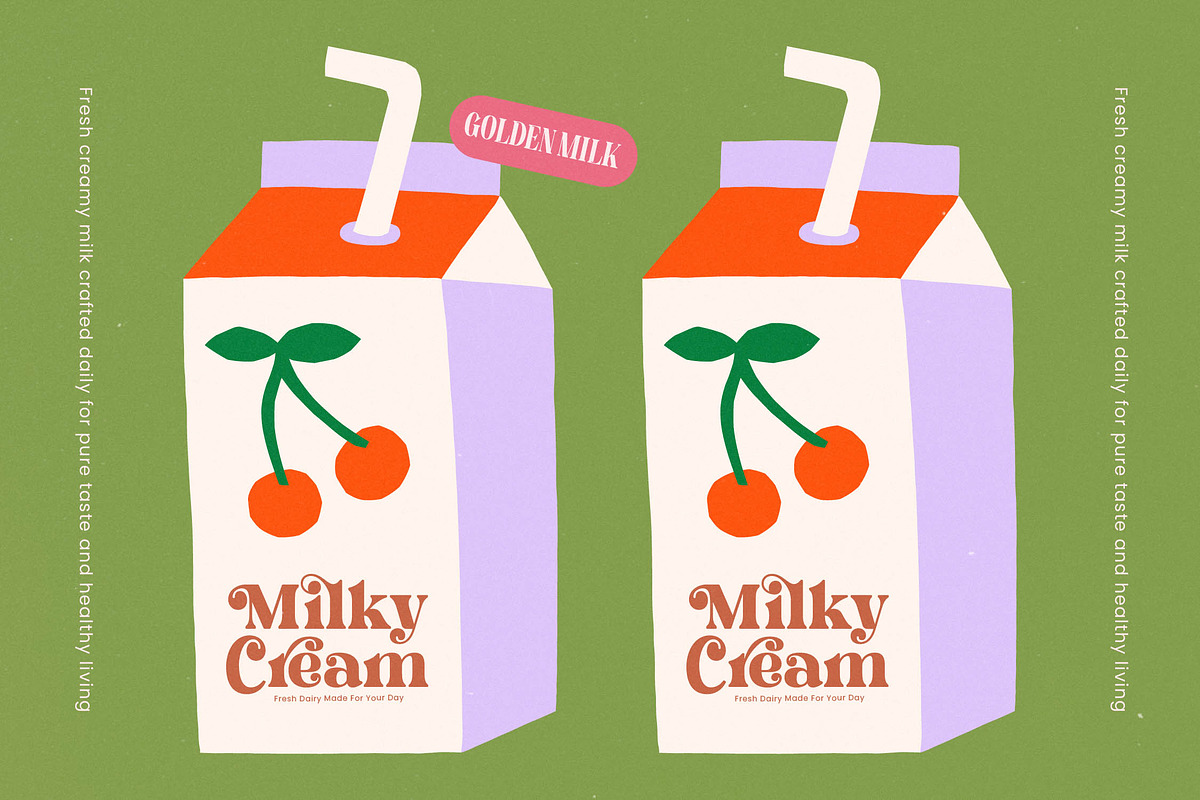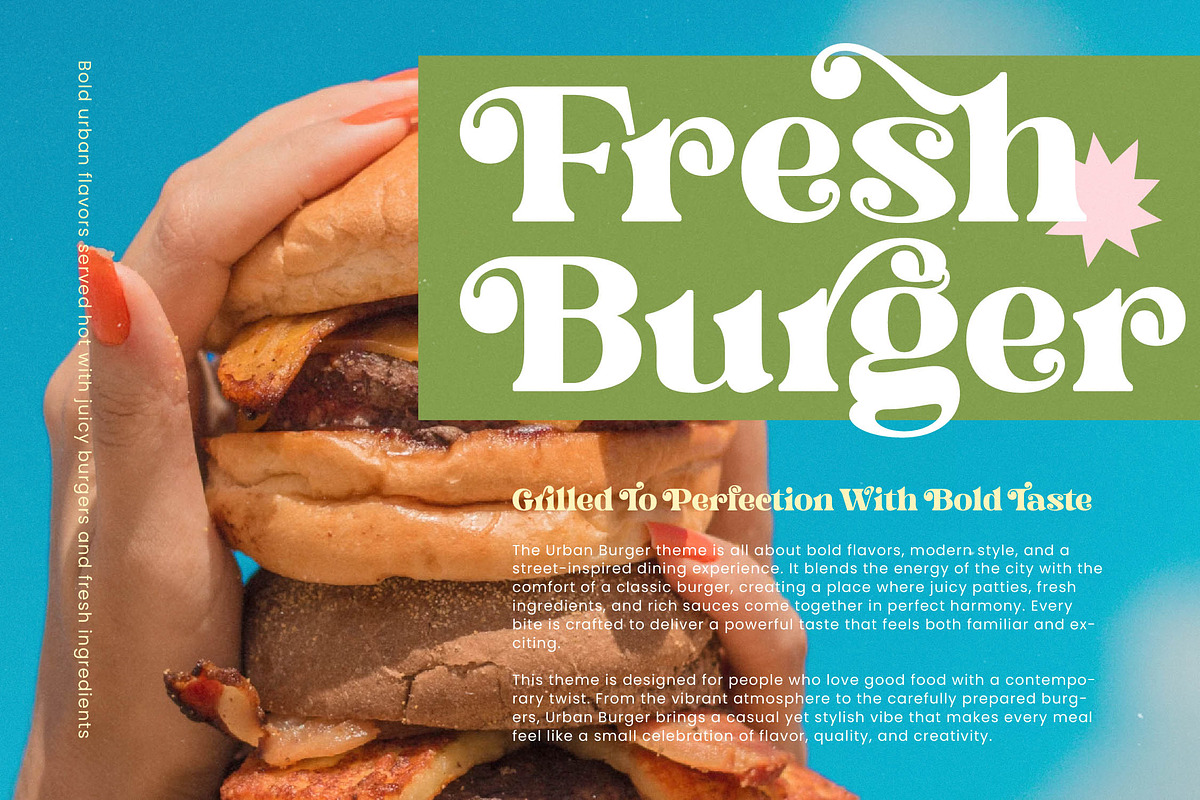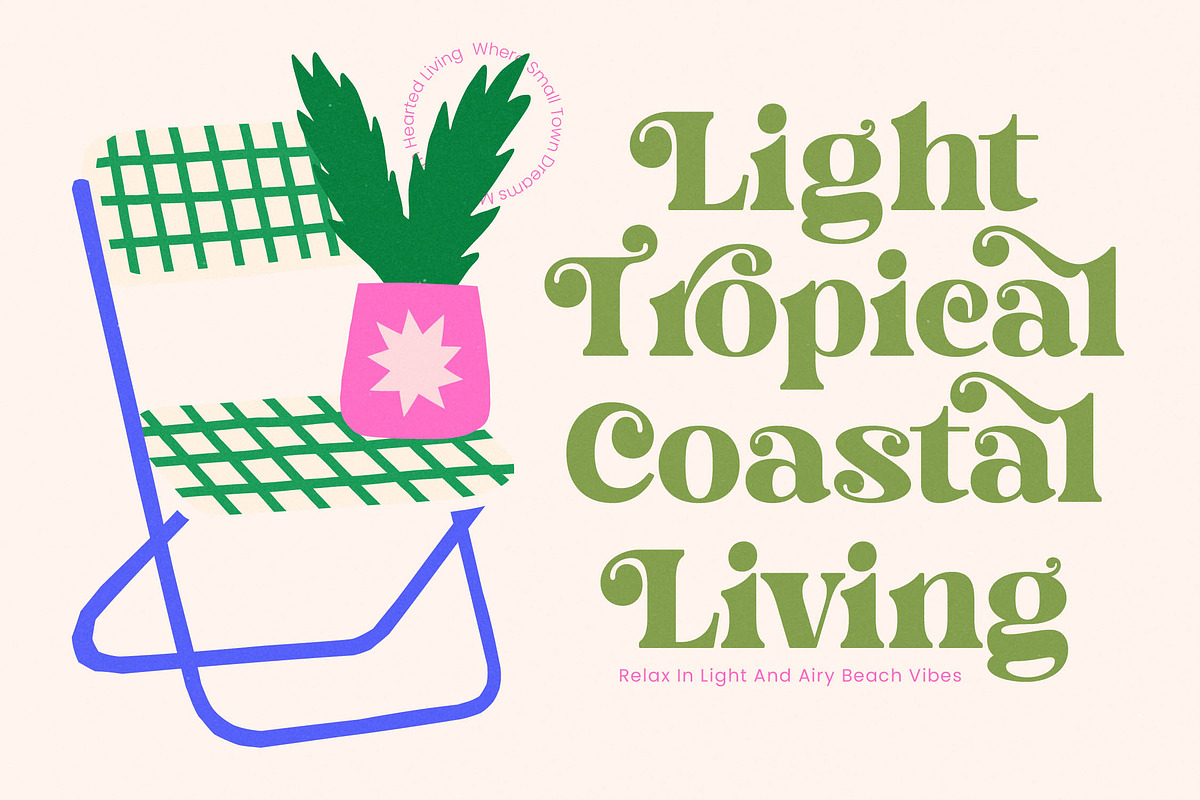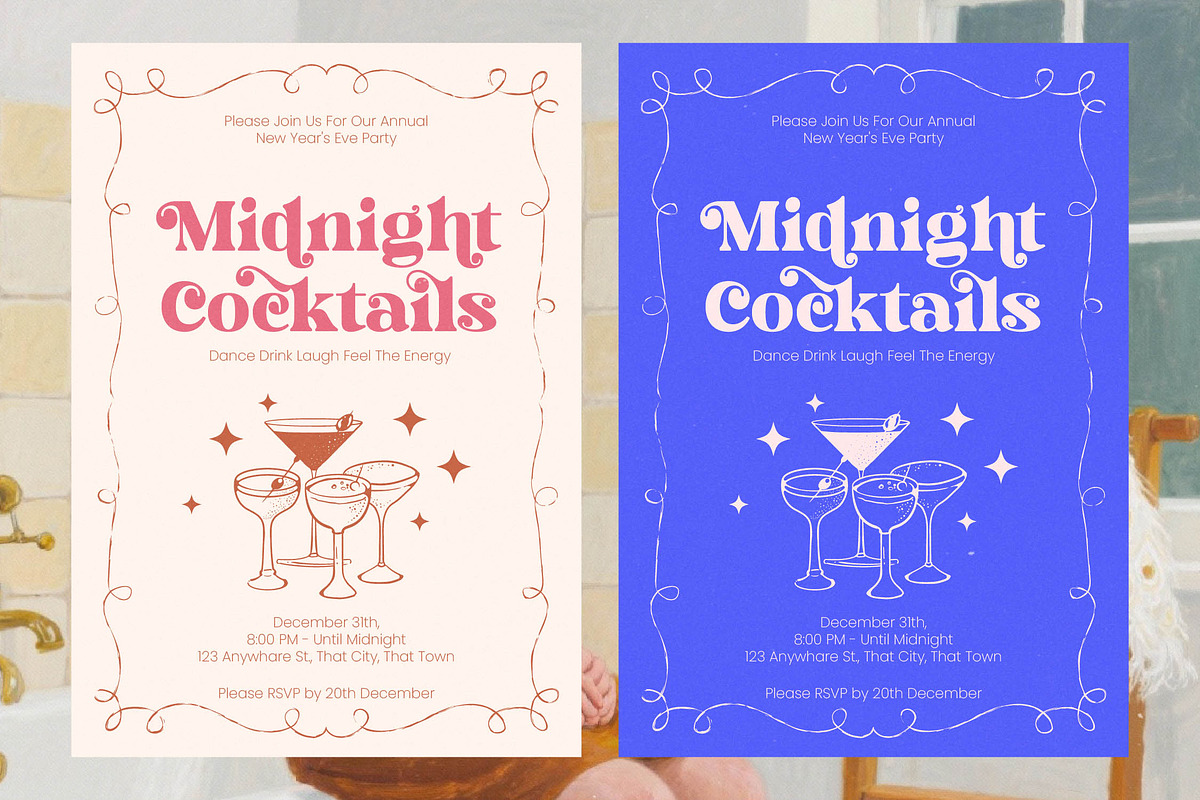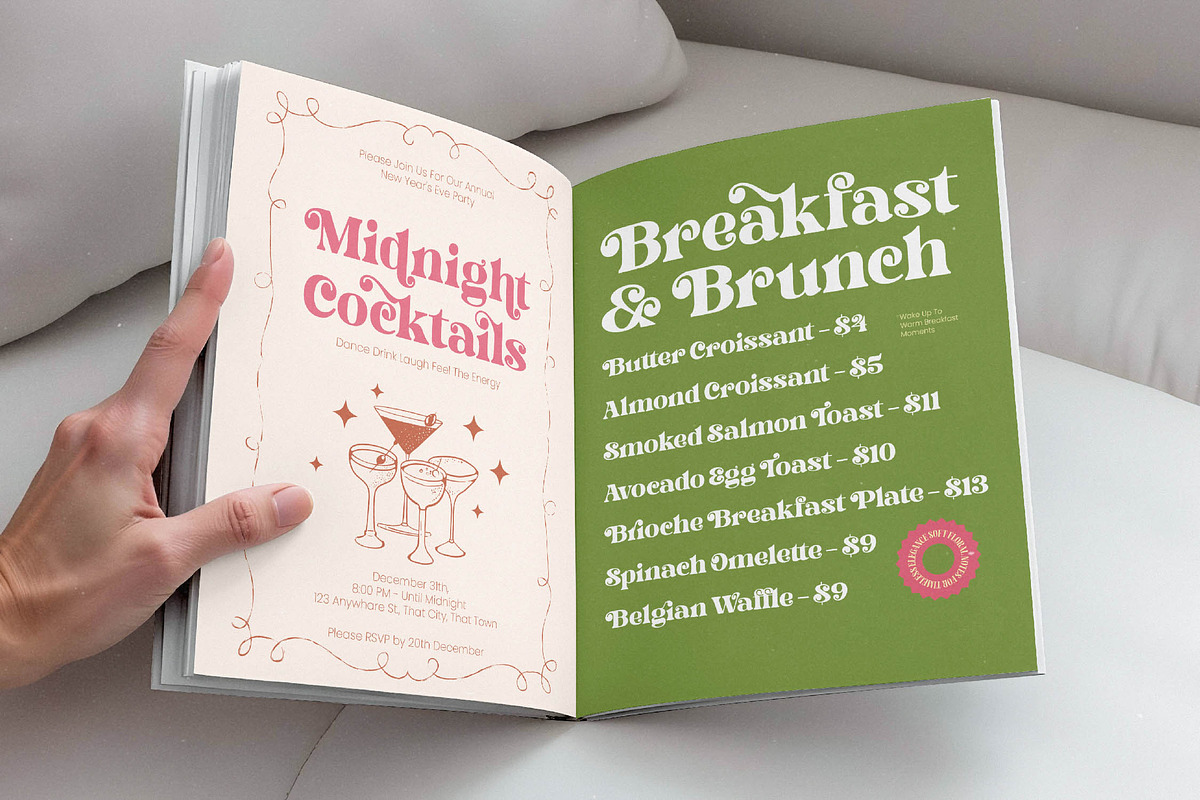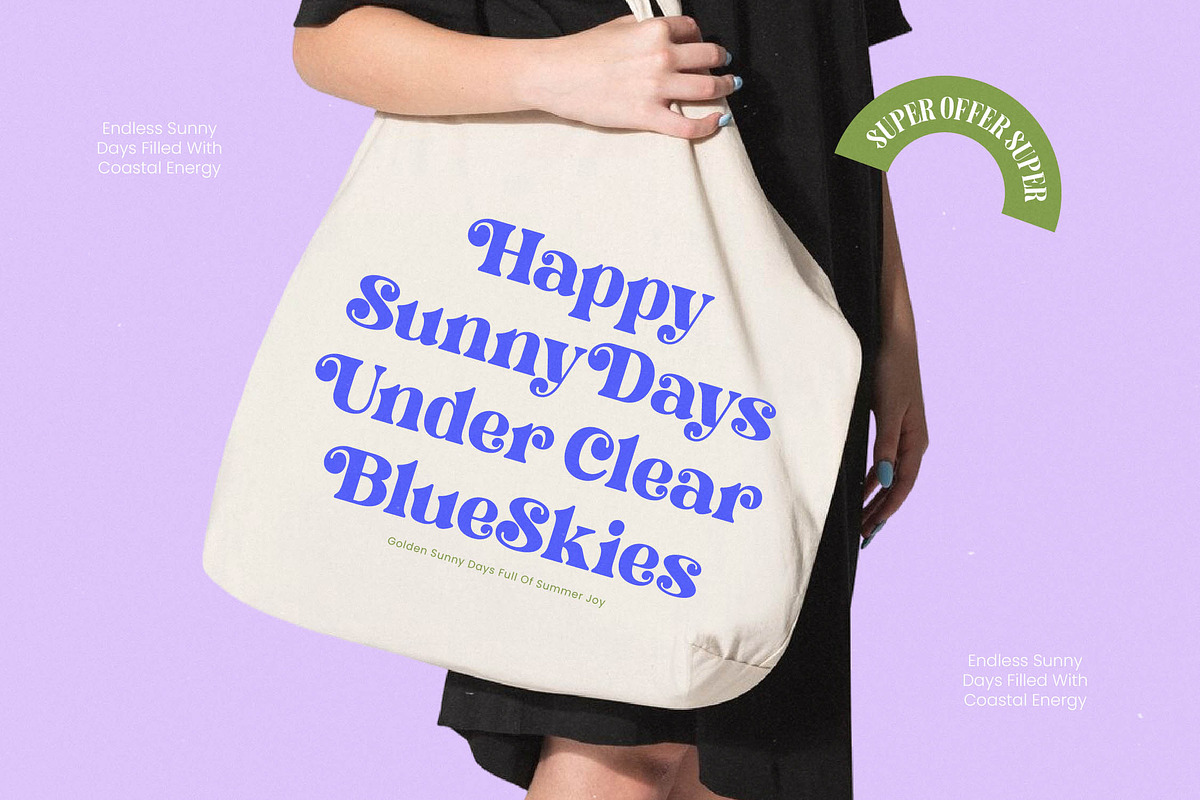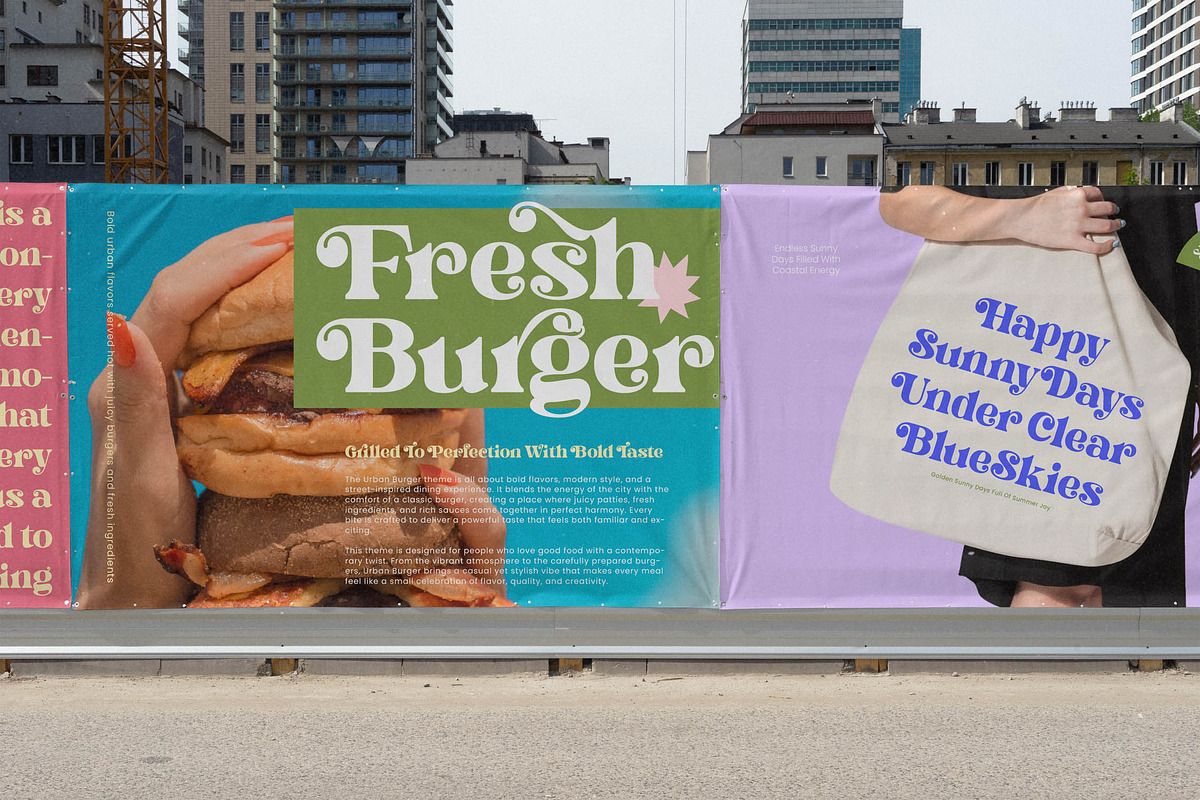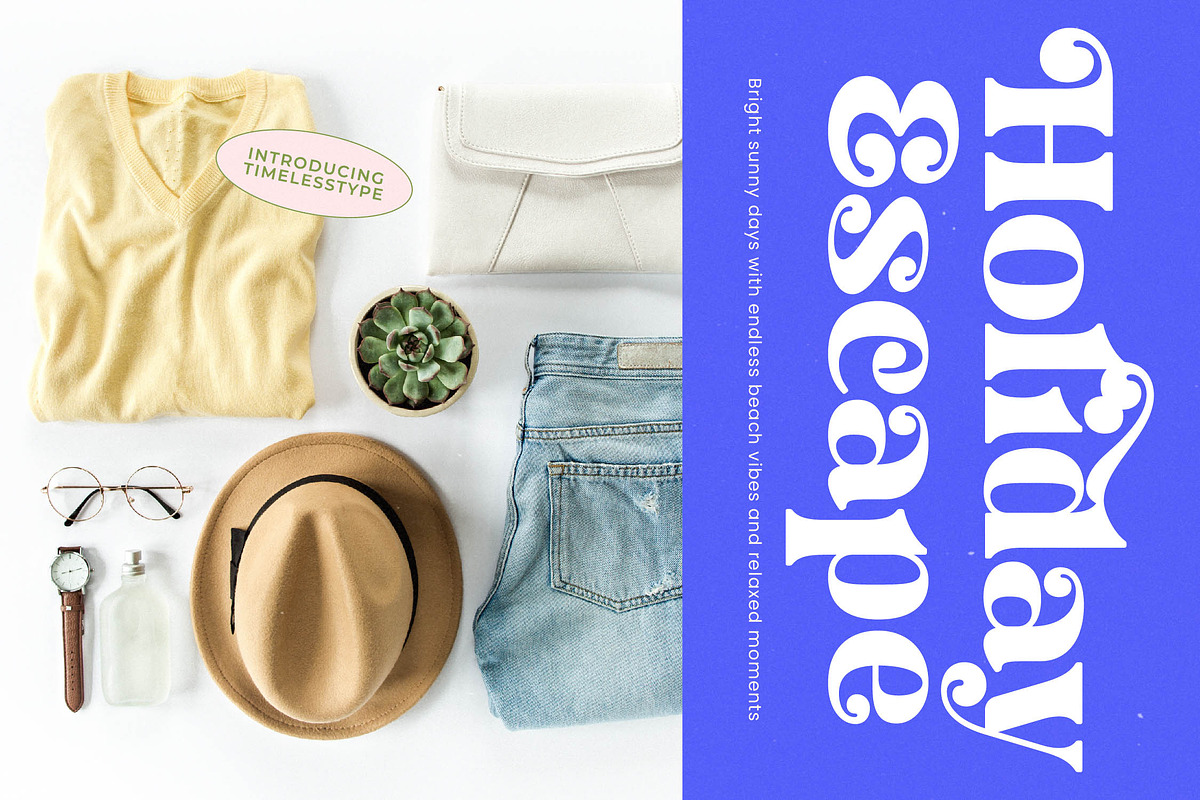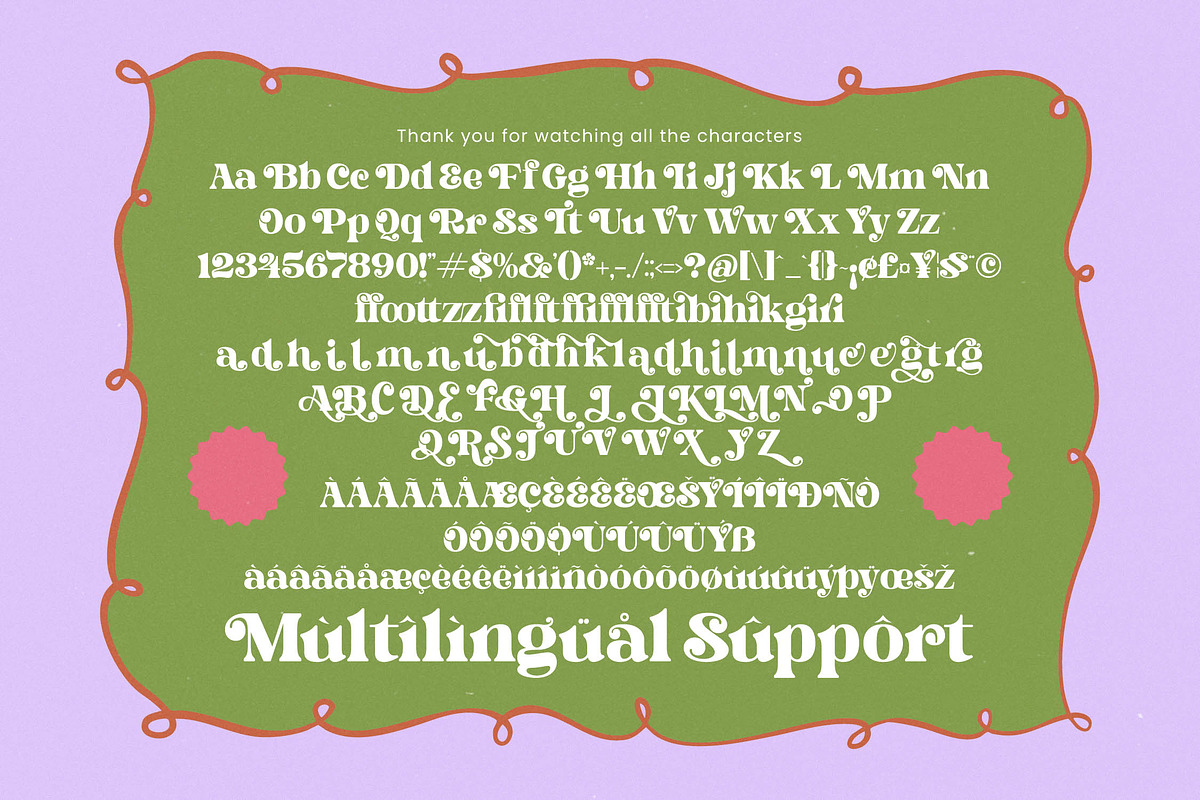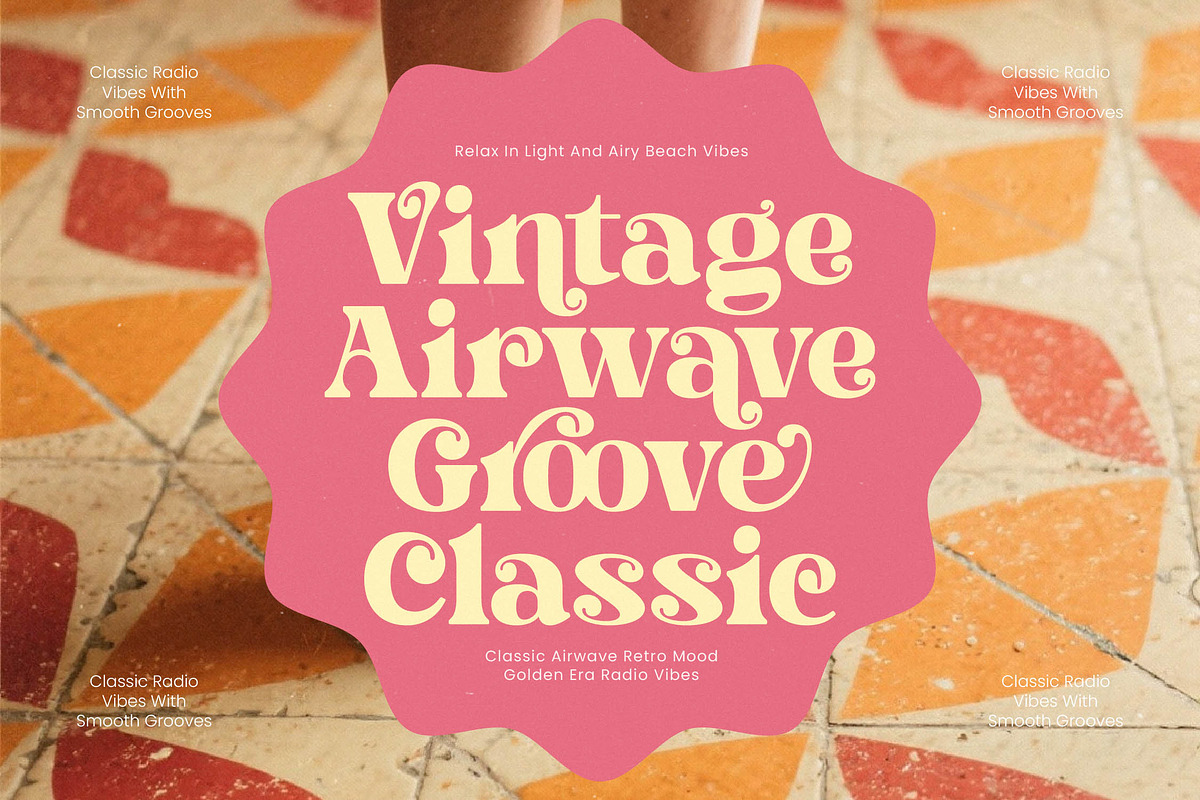
Dream Shine Retro Modern Serif
Dream Shine is the ultimate expression of nostalgic elegance, blending fluid curves with a bold presence that demands attention. This typeface is designed to breathe life into your most ambitious creative projects with its distinct and charming personality.
Drawing inspiration from the groovy 1970s and the sophisticated world of high-fashion editorial layouts, this font captures a unique intersection of playfulness and vintage class. It evokes the feeling of sun-drenched afternoons and the timeless aesthetic of classic vinyl covers and boutique cafe signage.
This modern serif display is defined by its expressive weight and high-contrast serif details that provide a maximum branding impact. Every character is a piece of luxury typography meticulously crafted to serve as an editorial font that bridges the gap between retro charm and contemporary chic.
Perfectly aligned with the current modern serif trend, this typeface meets the demand for character-driven typography that stands out in a crowded digital landscape. It is one of those essential editorial display fonts that allows designers to tap into the revival of soft, organic forms and psychedelic-inspired geometry.
Transform your next logo design or branding suite into a masterpiece of visual storytelling across packaging, digital media, and fashion marketing. From a romantic wedding invitation to high-end editorial spreads, the versatility of this font ensures a professional and polished look for any lifestyle brand.
The package includes a comprehensive set of ligatures and alternates to help you create truly unique typographic compositions. With full multilingual support and a wide range of international characters, this font is ready for global projects, while decorative swashes add that final touch of flair.